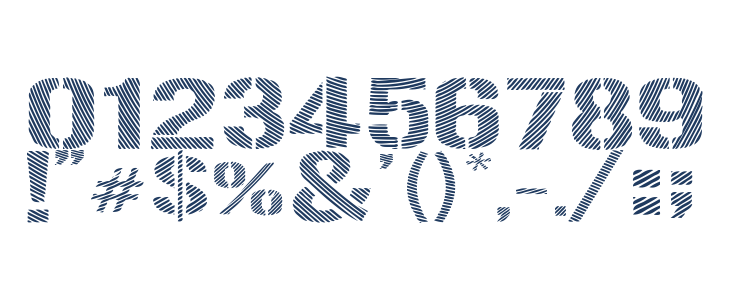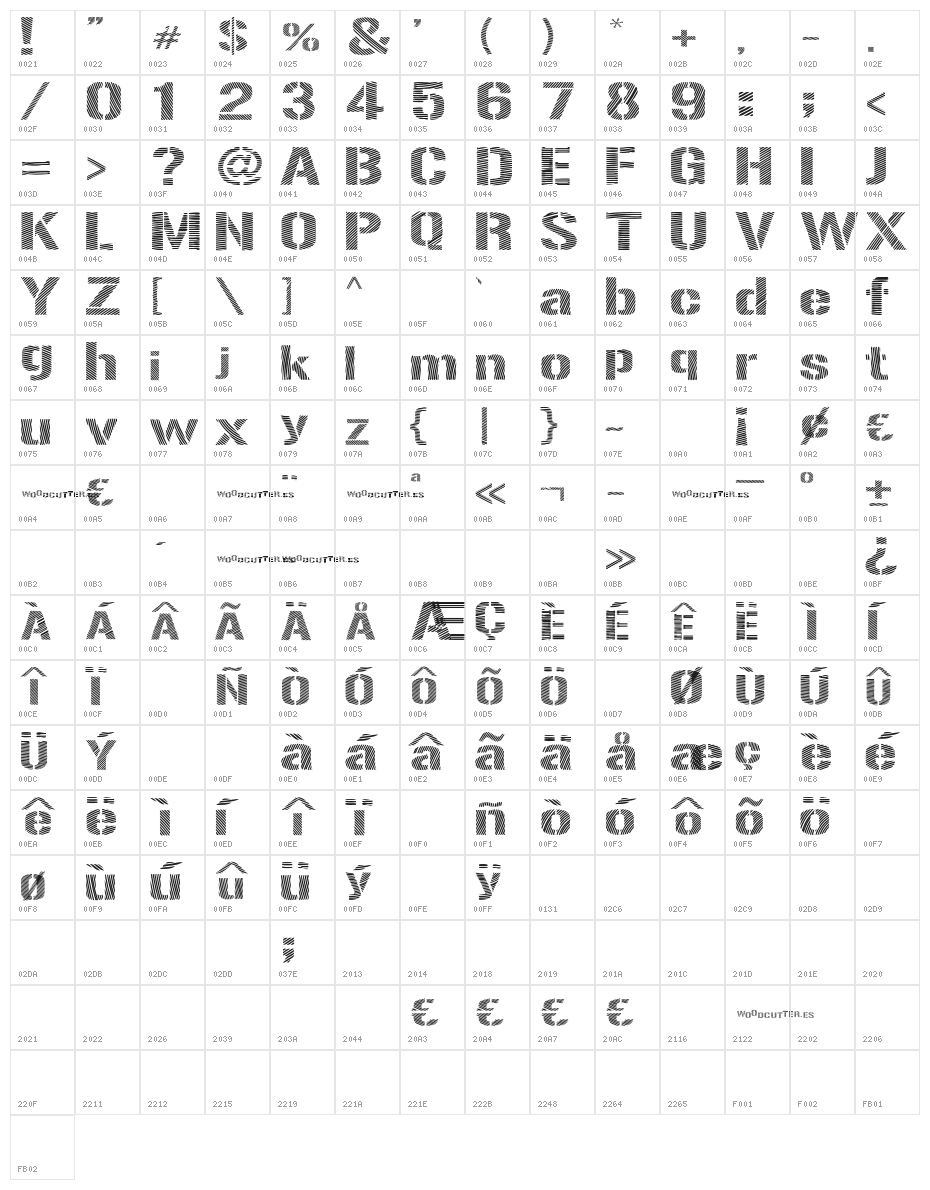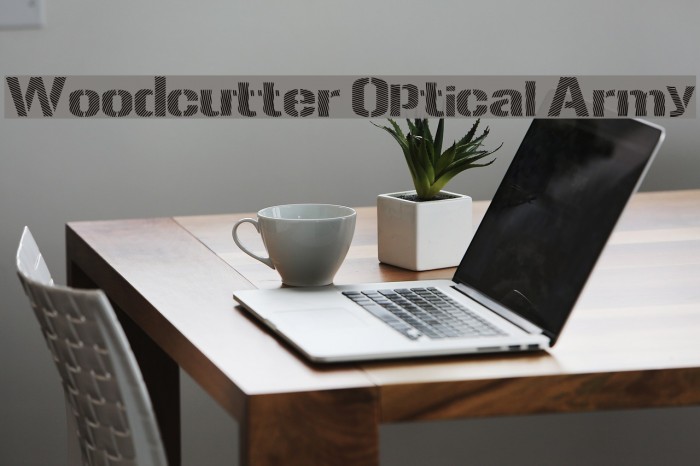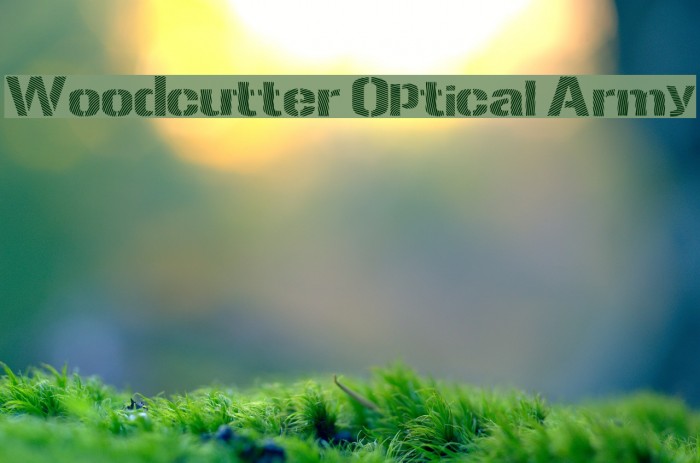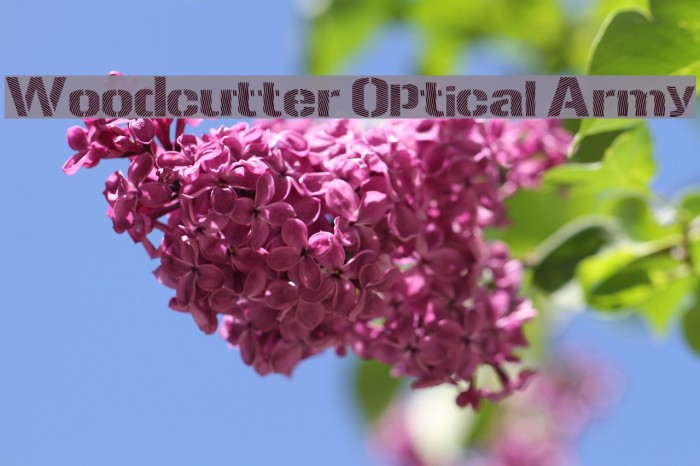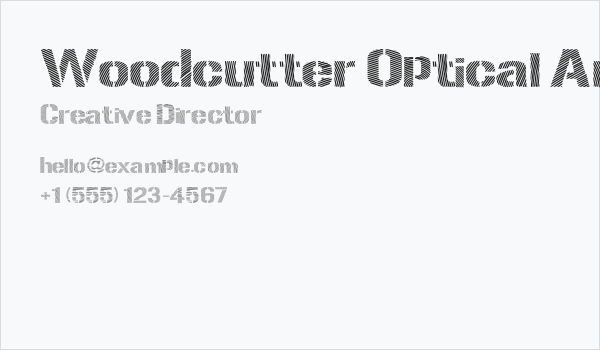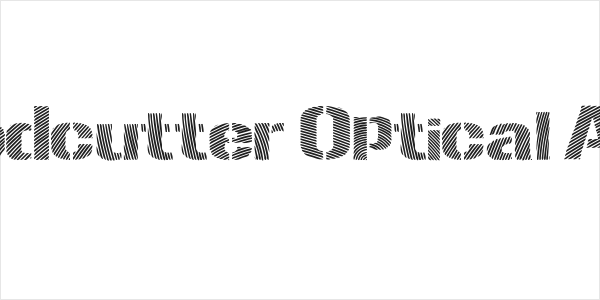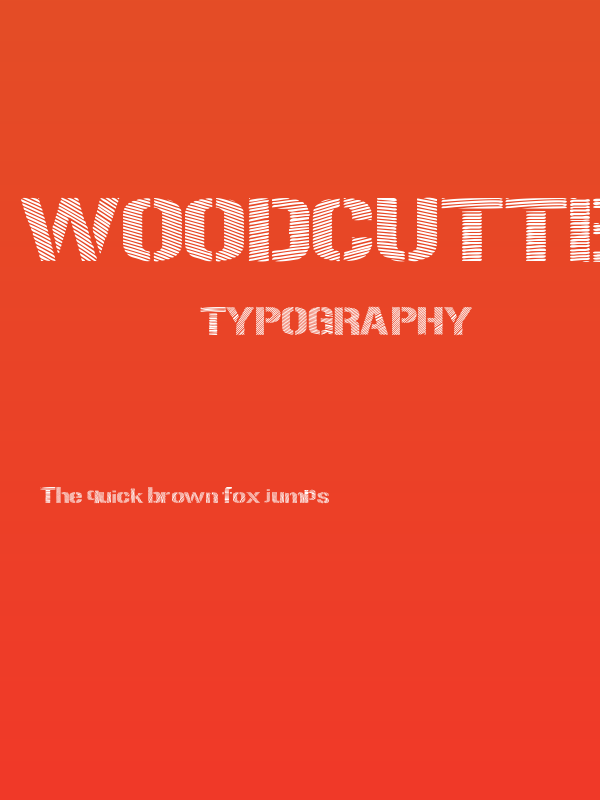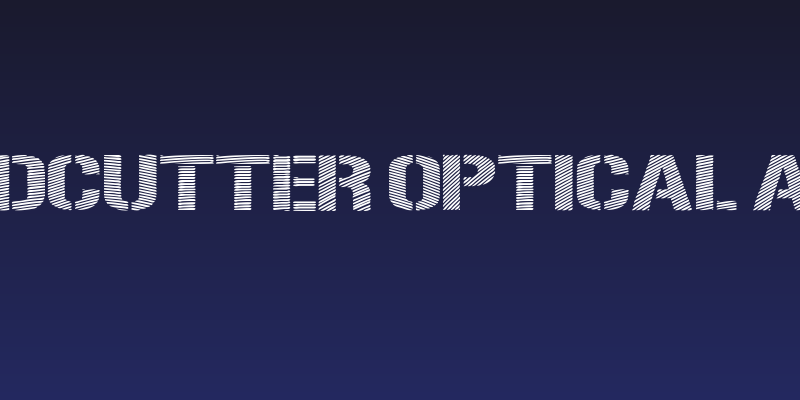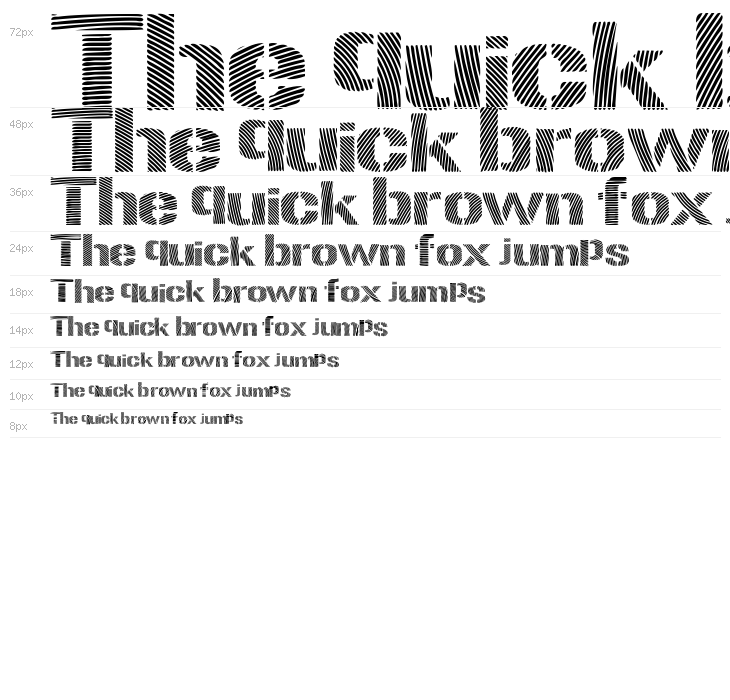
Woodcutter Optical Army Font
Woodcutter Optical Army Description
This font features a bold and striking design with diagonal lines cutting through each character, creating a unique optical illusion effect. The uppercase and lowercase letters maintain a consistent style, with each character appearing as if it is composed of slanted stripes. The numbers and special characters follow the same pattern, ensuring uniformity across the entire typeface. This design gives the font a dynamic and modern feel, making it stand out in any application. The boldness of the characters is complemented by the medium contrast in stroke thickness, which adds to the visual interest without compromising readability.
| Proposed Projects | Ideal for posters, branding, and any project that requires a bold, eye-catching typeface. |